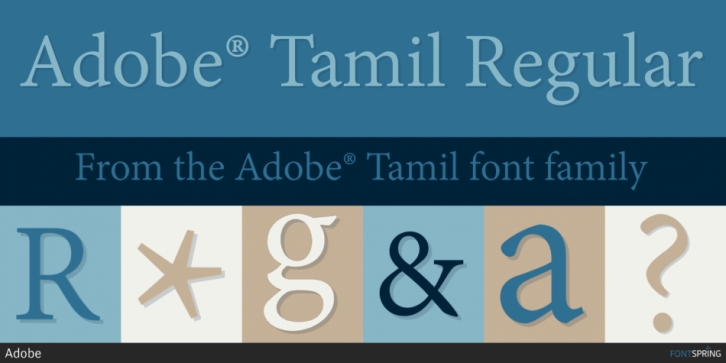
The Adobe Tamil typeface was designed by Fernando Mello for Adobe from 2012 to 2013. Tamil script experts Fiona Ross and Rathna Ramanathan consulted on the design. This type family was designed to harmonize with Adobe Devanagari, both in terms of apparent size and style, to ensure the two families could be typeset together as a system. The primary intended usage  ̶  for printed outputs, particularly continuous text settings  ̶  guided the design direction.
The letter construction is based on traditional Tamil penmanship and features a contrast distribution somewhat lower than the norm so as to maintain strong, legible forms at small sizes. The design features careful attention to shaping and details that allow these typefaces to also serve well as display types at larger sizes. Many available Tamil types feature sloped letterforms, however the Adobe Tamil design features upright forms that follow typical letter construction found in calligraphy and in writing.
The Adobe Tamil fonts comply with the Unicode standard for character encoding and leverage the technology of OpenType to produce correct script shaping and accurate pulli placement. The fonts feature an extensive set of ligatures that encompasses classical and contemporary forms of the Tamil script. The fonts include both proportional and tabular numerals in European styles, as well as proportional forms for Tamil numerals. Additionally, ligature forms for traditional orthography are accessible via stylistic sets.
The Adobe Tamil fonts are further examples of Adobe’s high standards in design and acute attention to technical quality, and provide an excellent alternative to existing digital Tamil types.